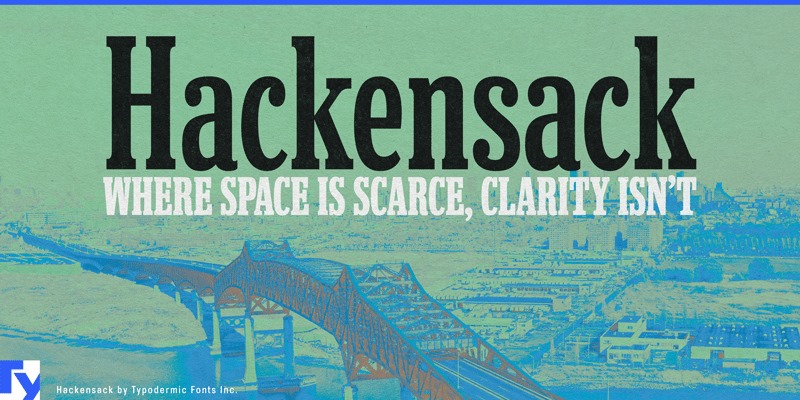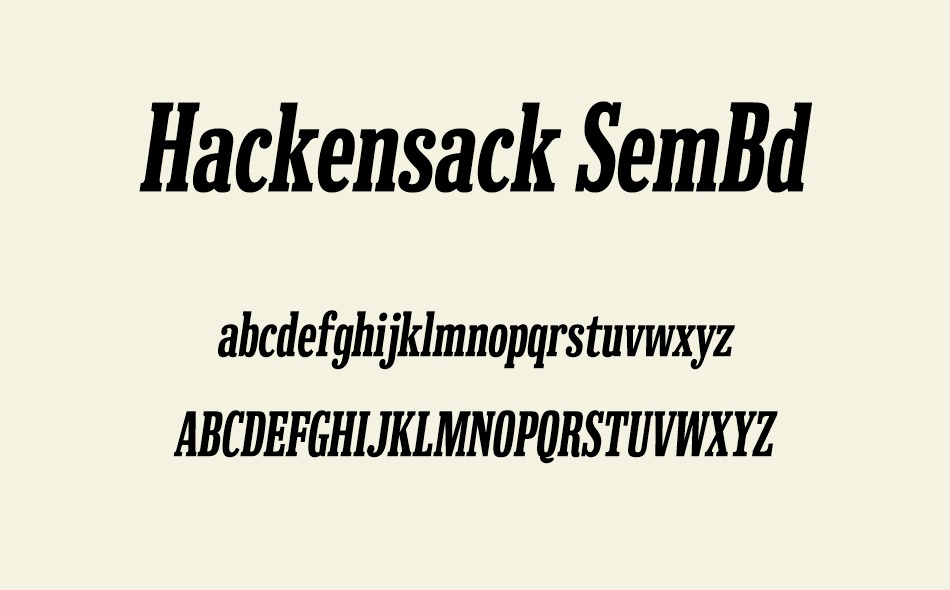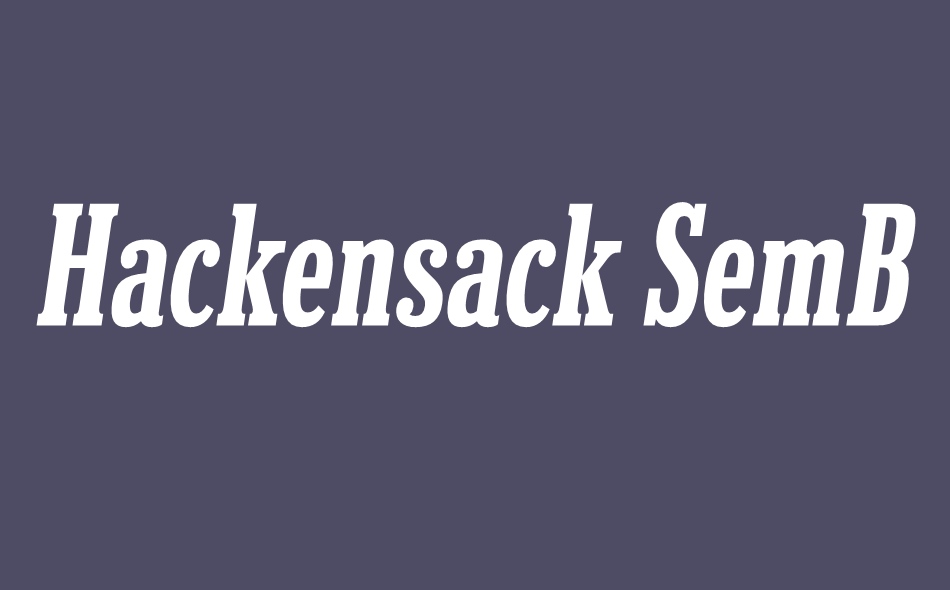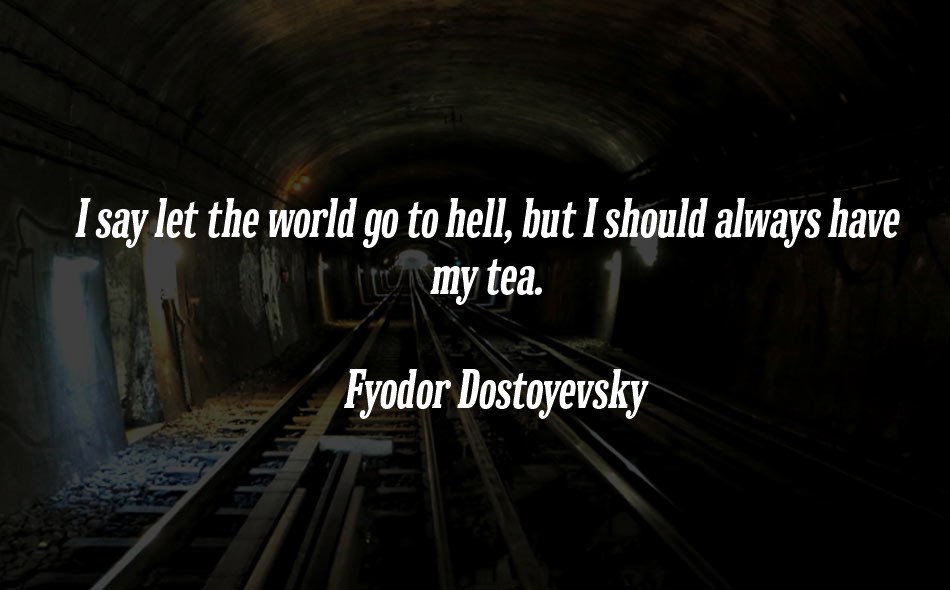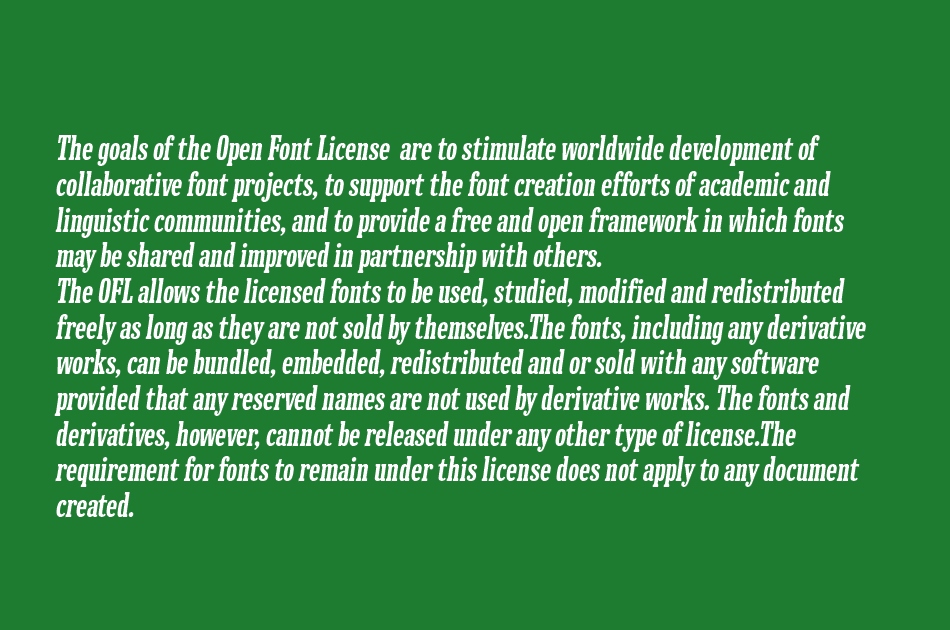
Hackensack font
Hackensack is a compact slab serif with a clean, modern edge. Inspired by classic Clarendon styles but stripped of old-timey quirks, it delivers strong slabs, tight spacing, and clear, readable formseven in small sizes. Features like the single-storey g keep things open and contemporary, while subtle ball terminals add just enough warmth.
Perfect for headlines, interfaces, packaging, and anywhere space is limited but clarity matters.